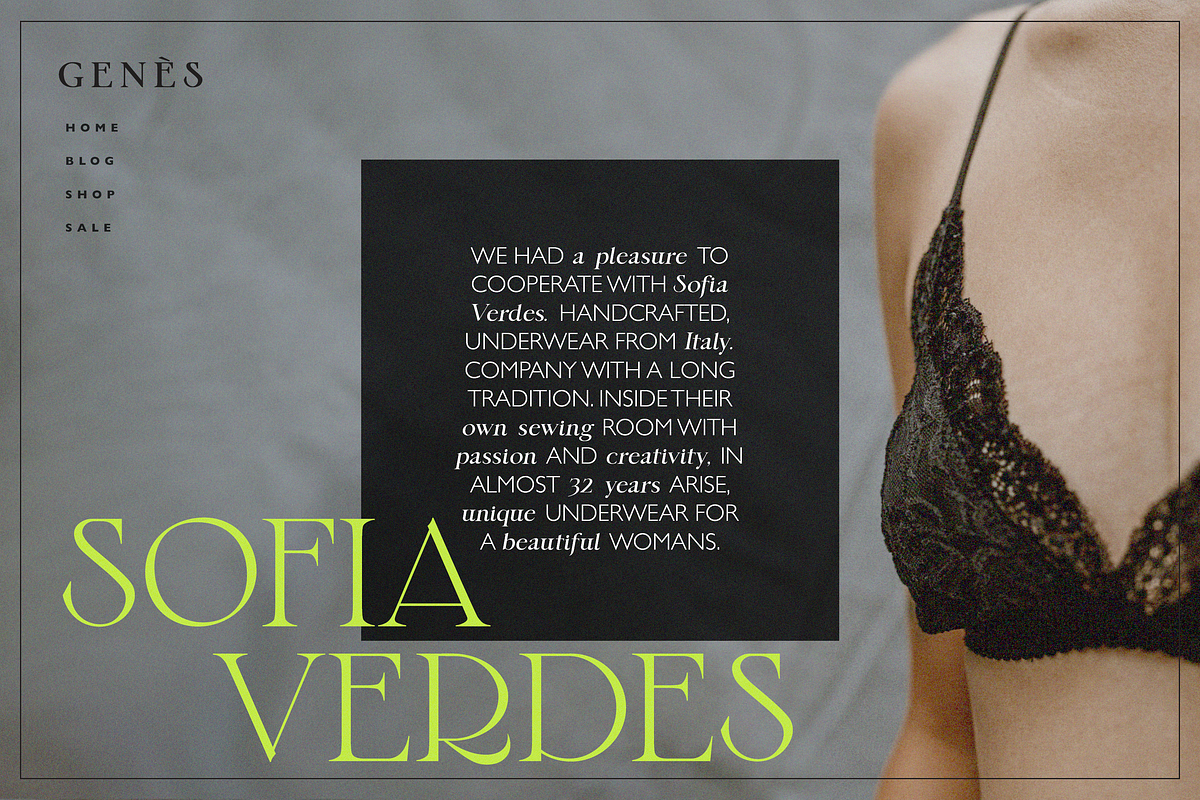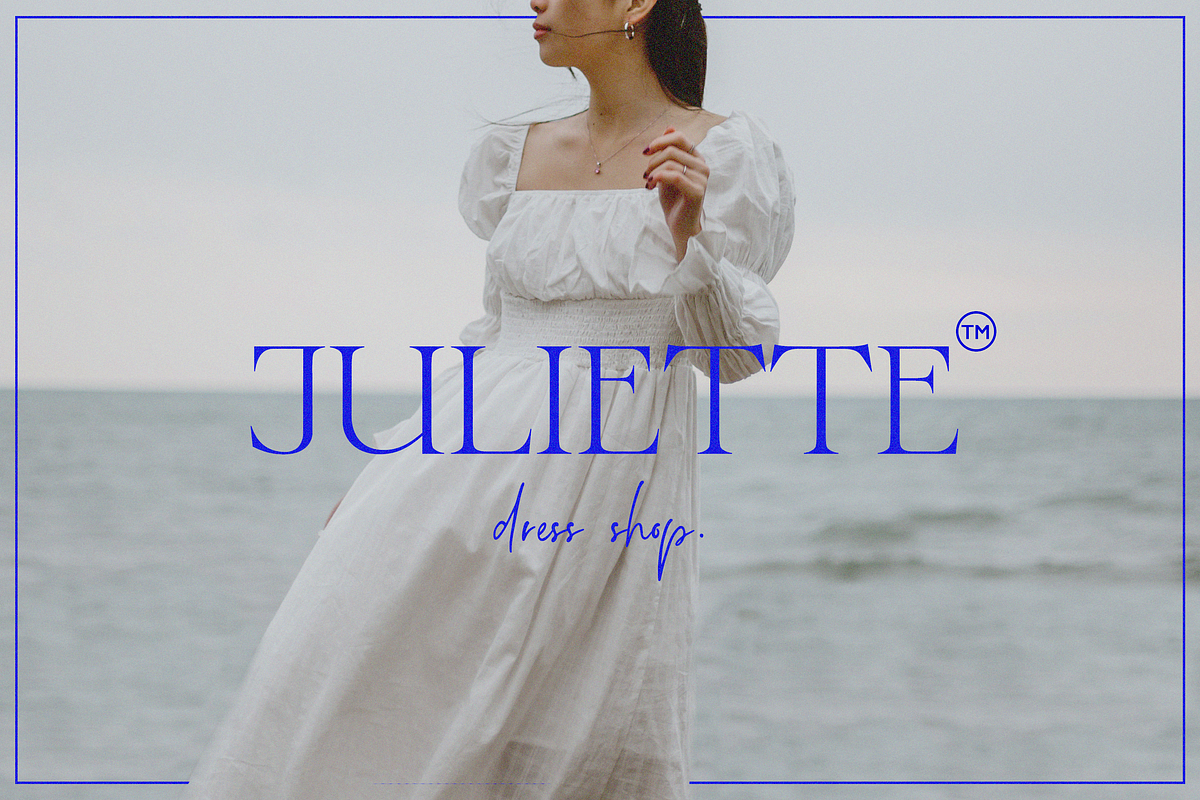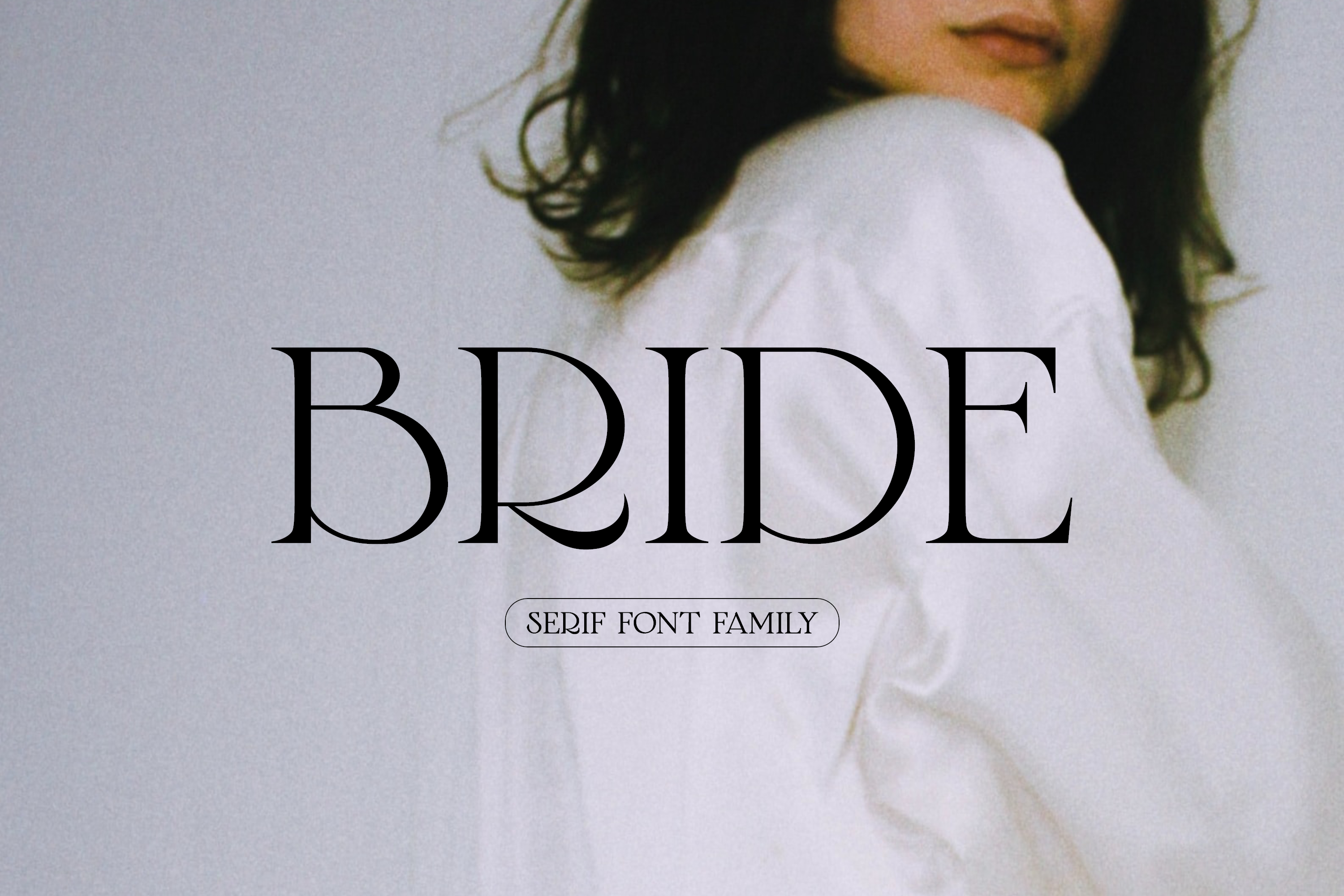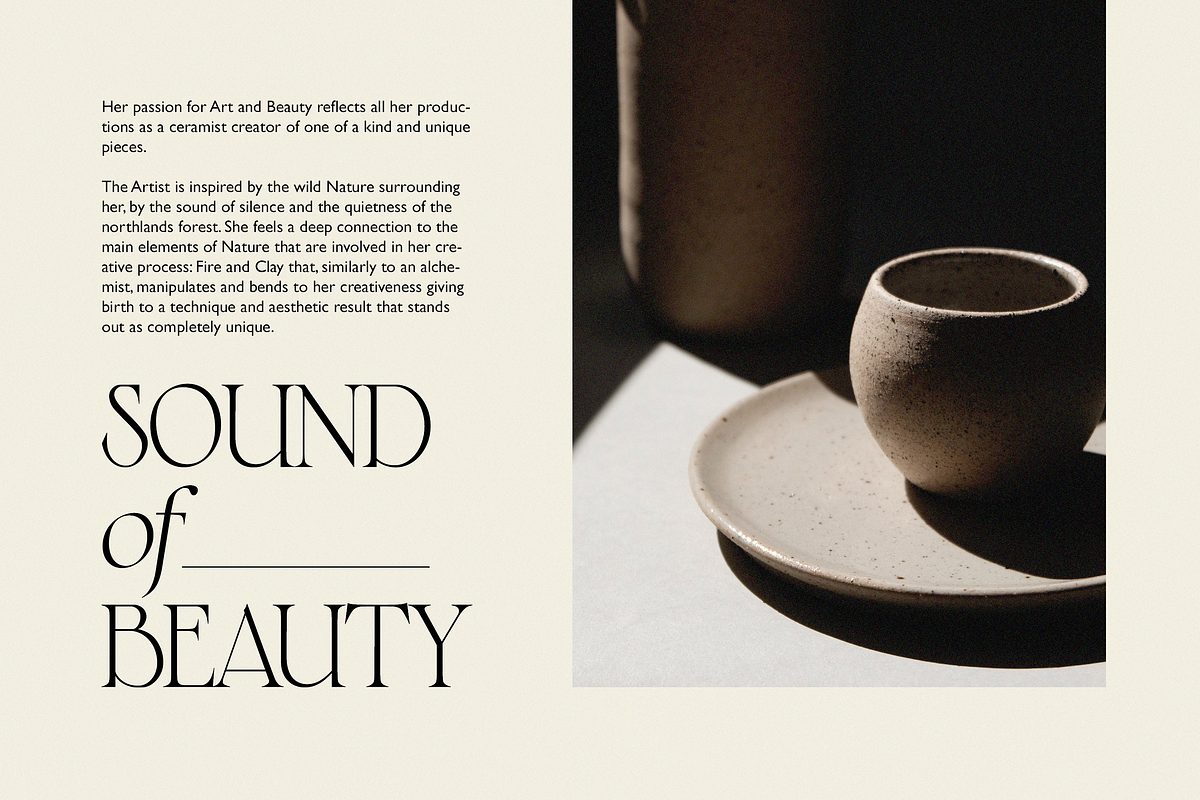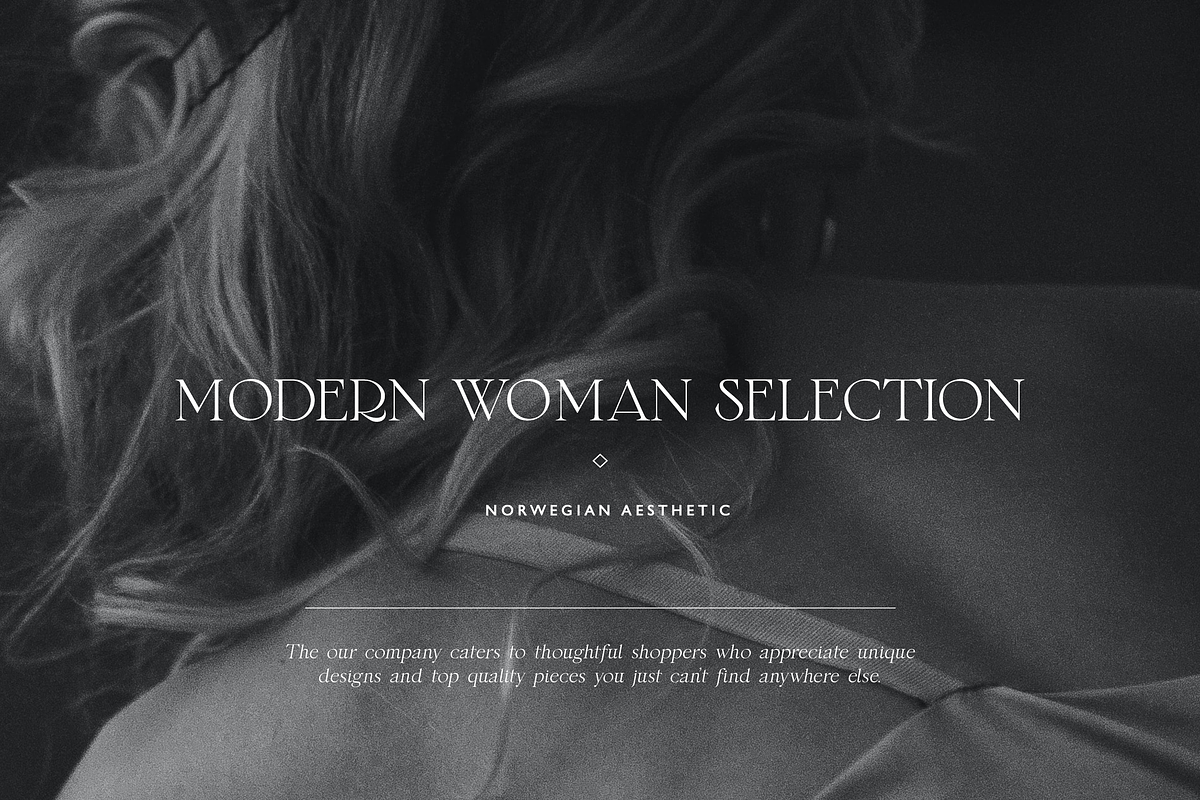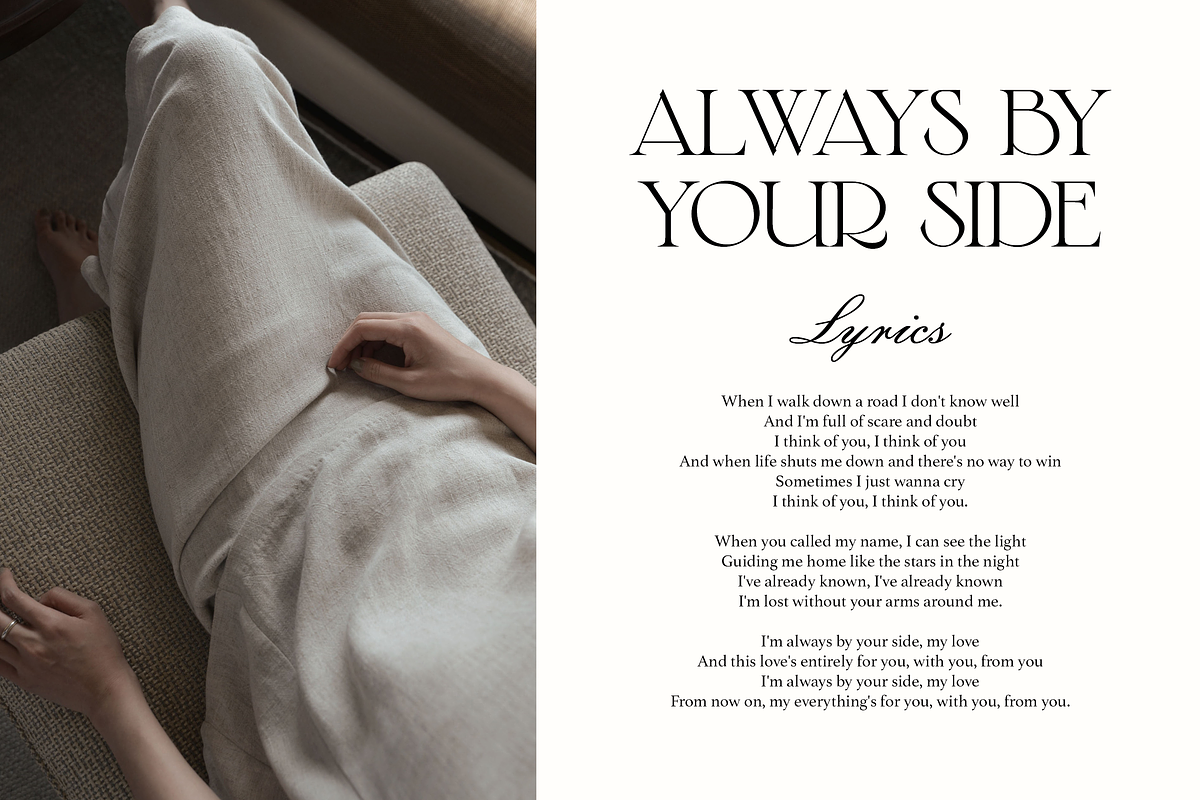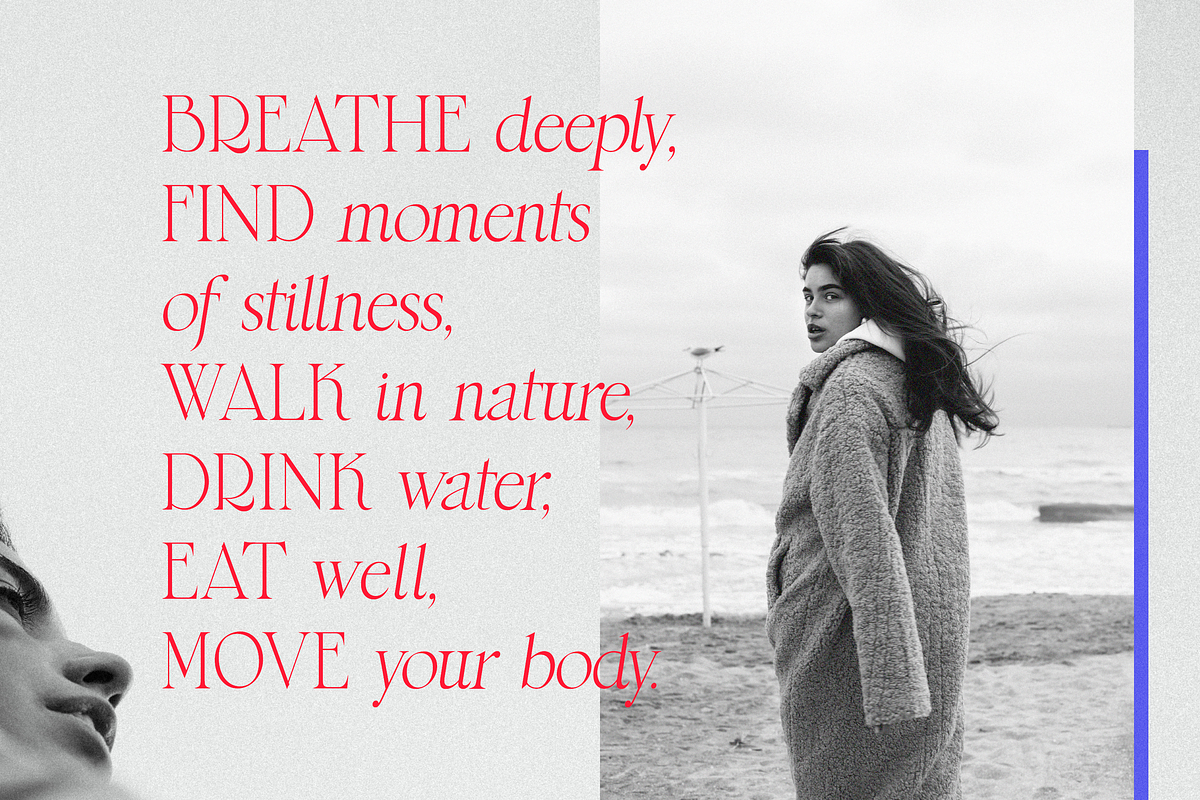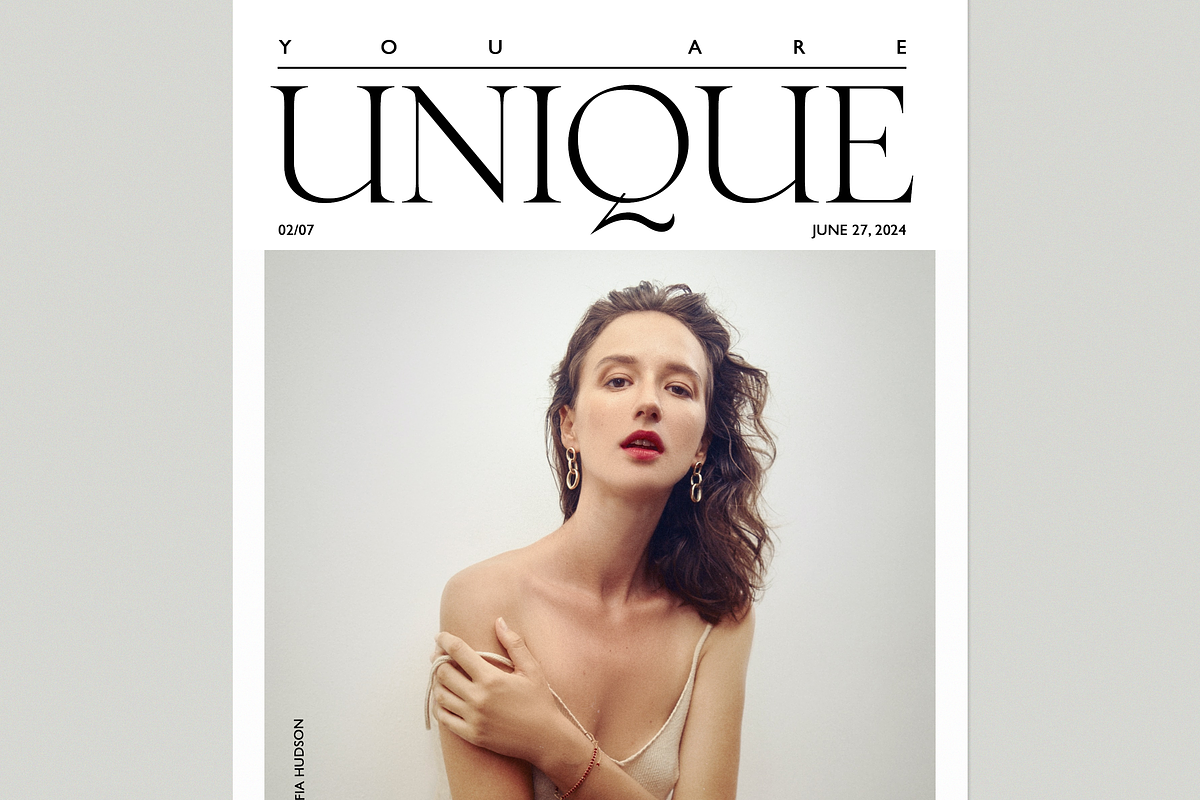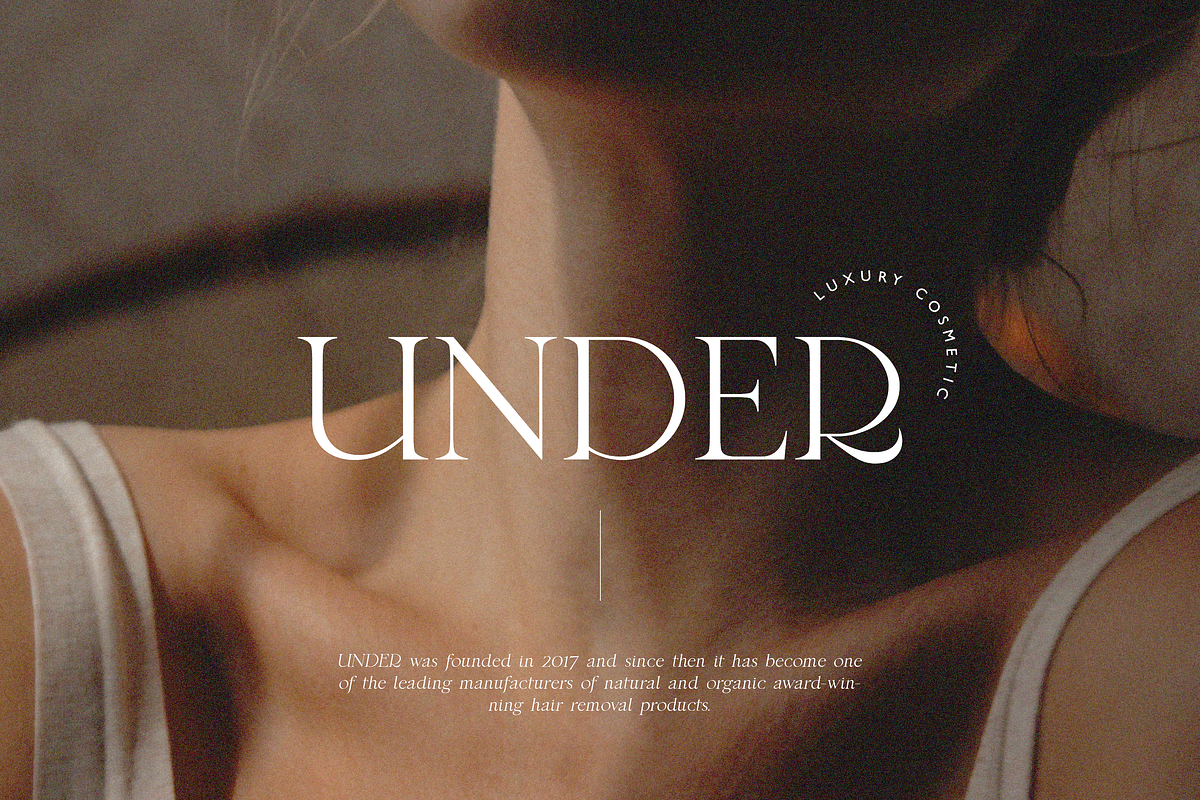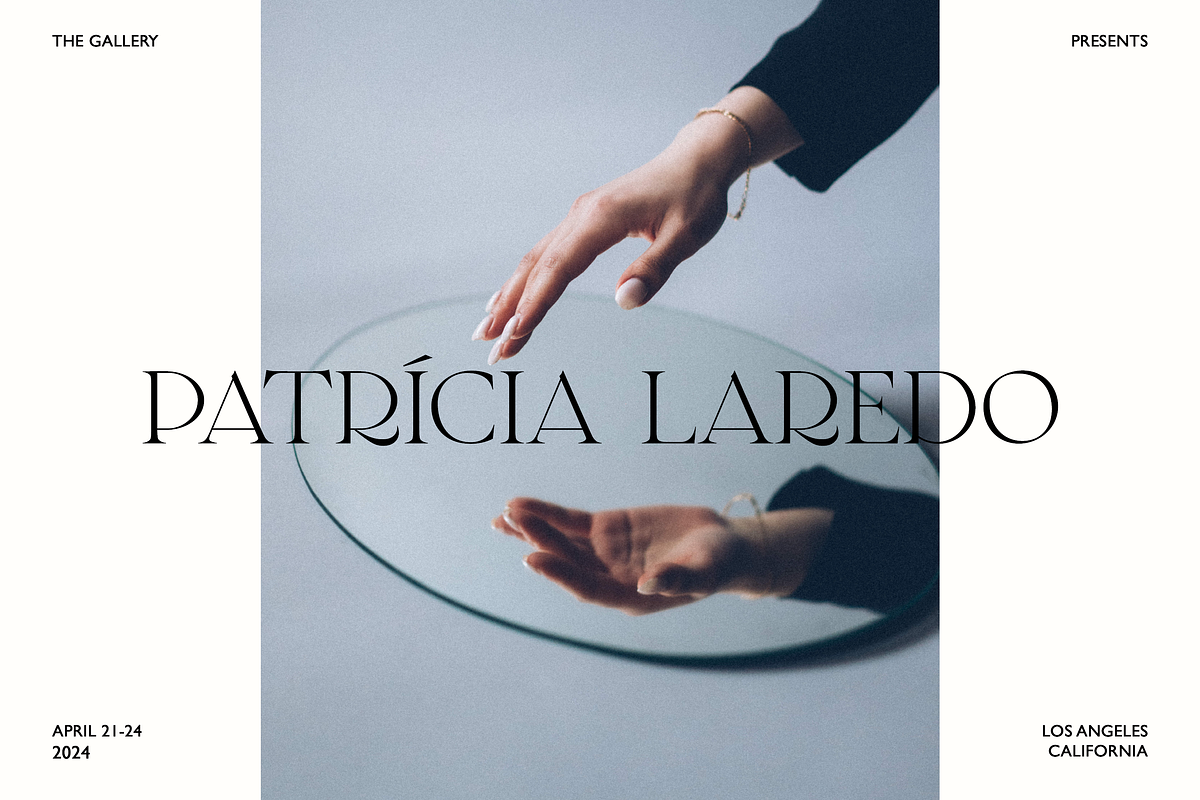
Bride Serif Font
Introducing my new Bride serif font family with elegant poetry style. Perfect for branding, wedding, logos, invitations and more.
- Upper/lowercase, numbers, punctuations.
- Regular, Italic, Bold, Alternates, etc.
Language support: English, German, French, Spanish, Italian, Danish, Finnish, Portuguese, Swedish, Norwegian, Dutch, Indonesian, Luxembourgish, Icelandic, Cornish, Hungarian, Filipino, Turkish.